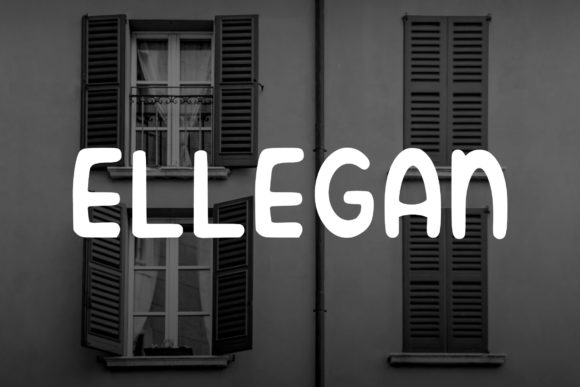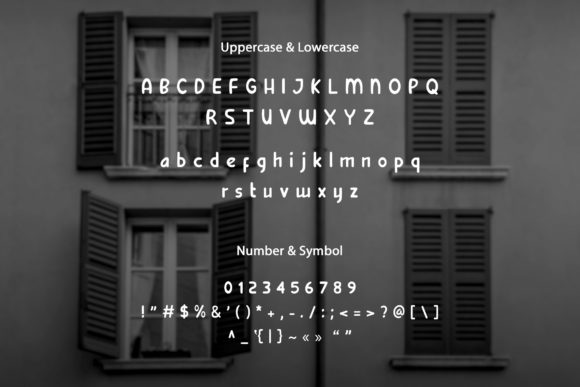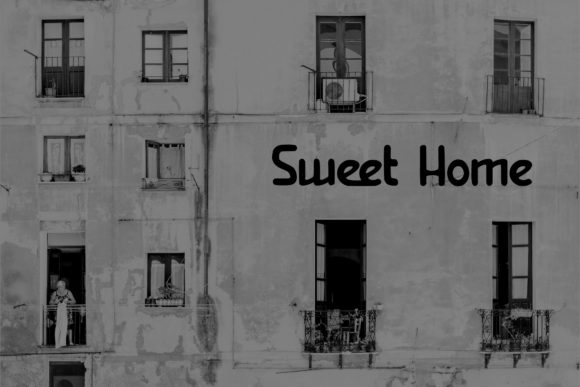
Introduction to Ellegan Font
Ellegan is a cool, fun and neat lettered display font.
It is unique and interesting and it can be added to various creations that require a friendly and cartoon-like touch .